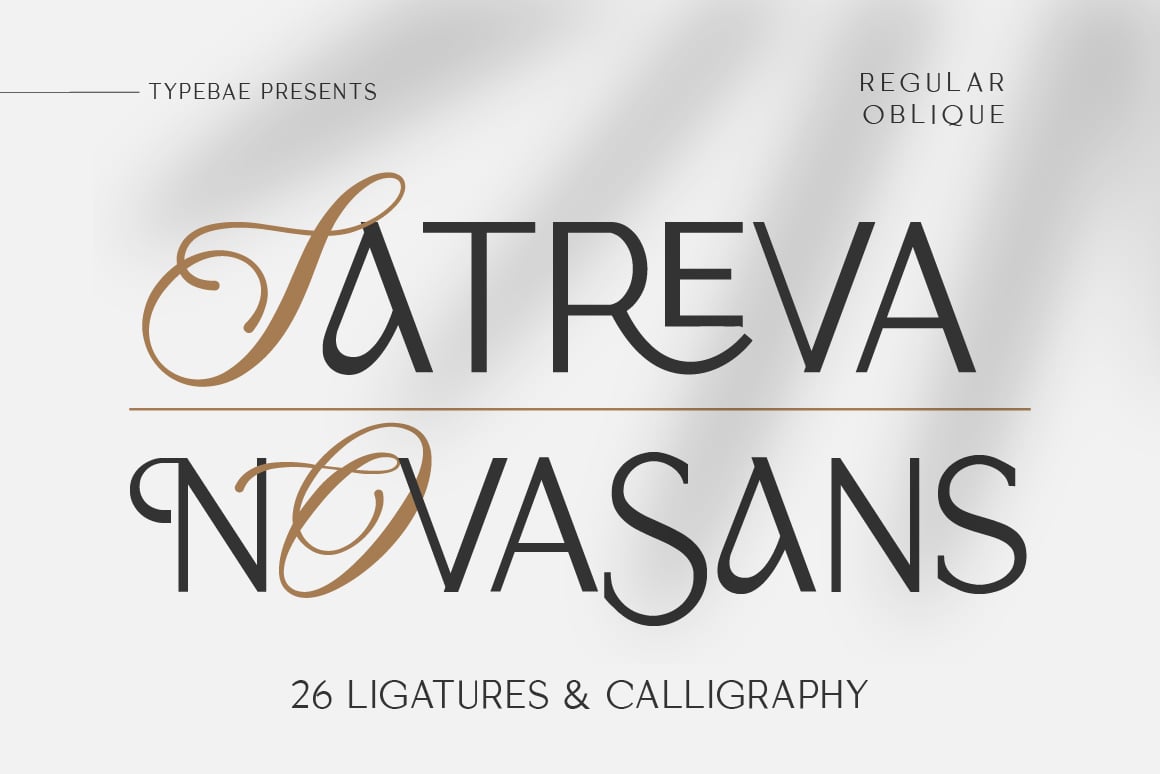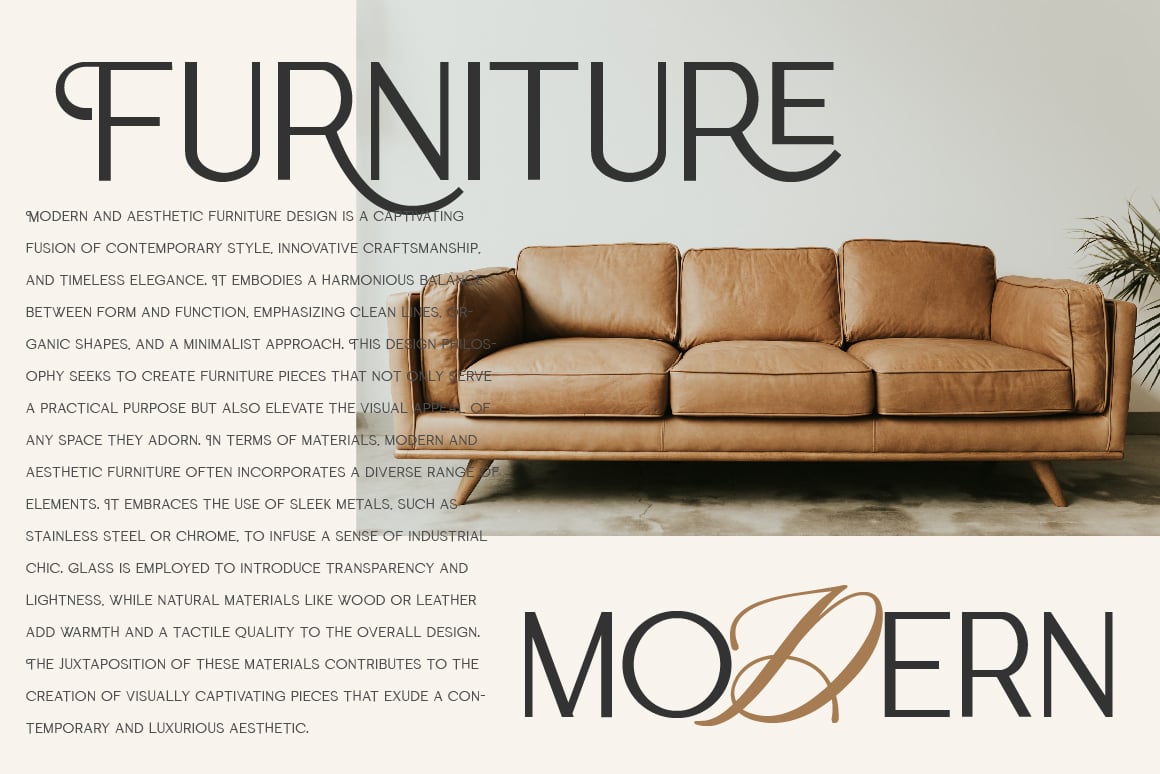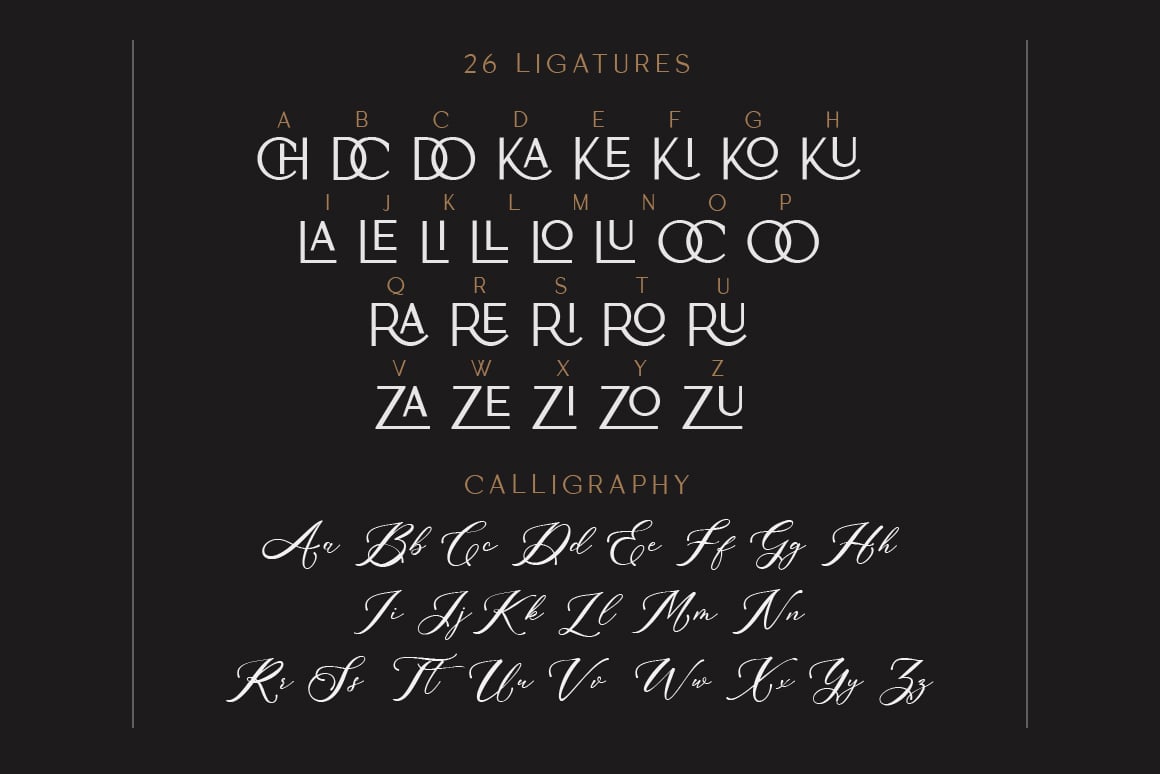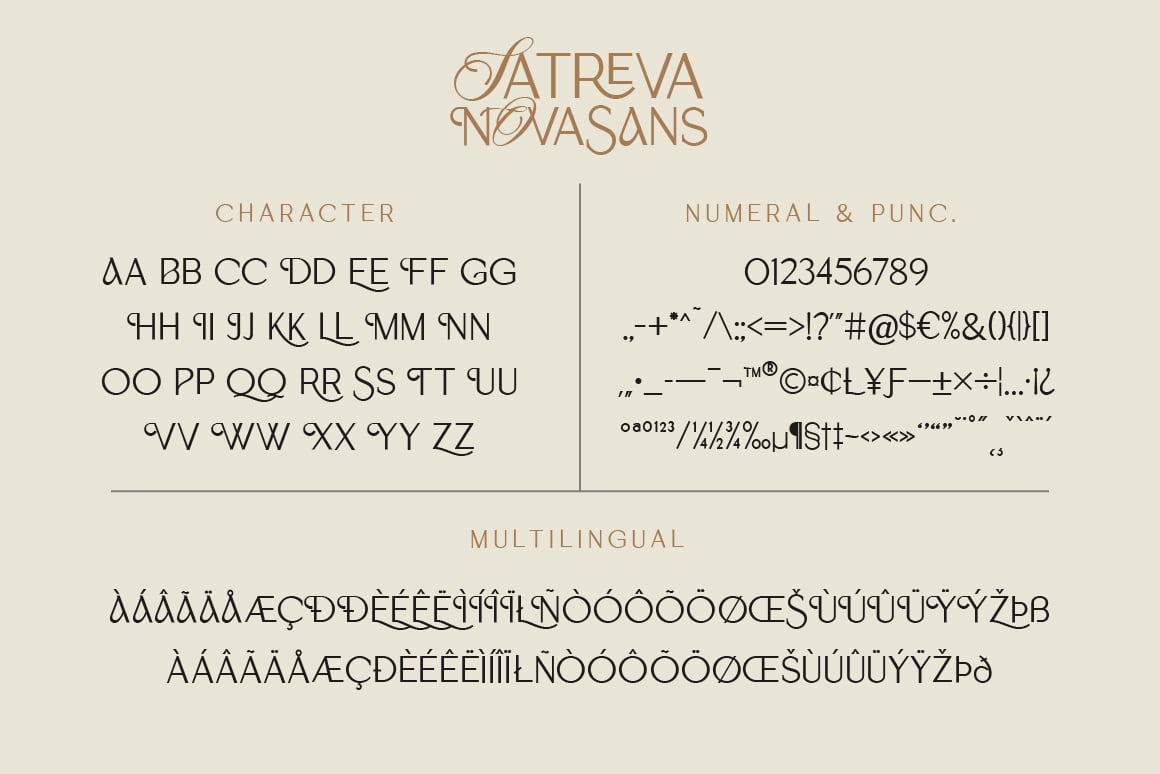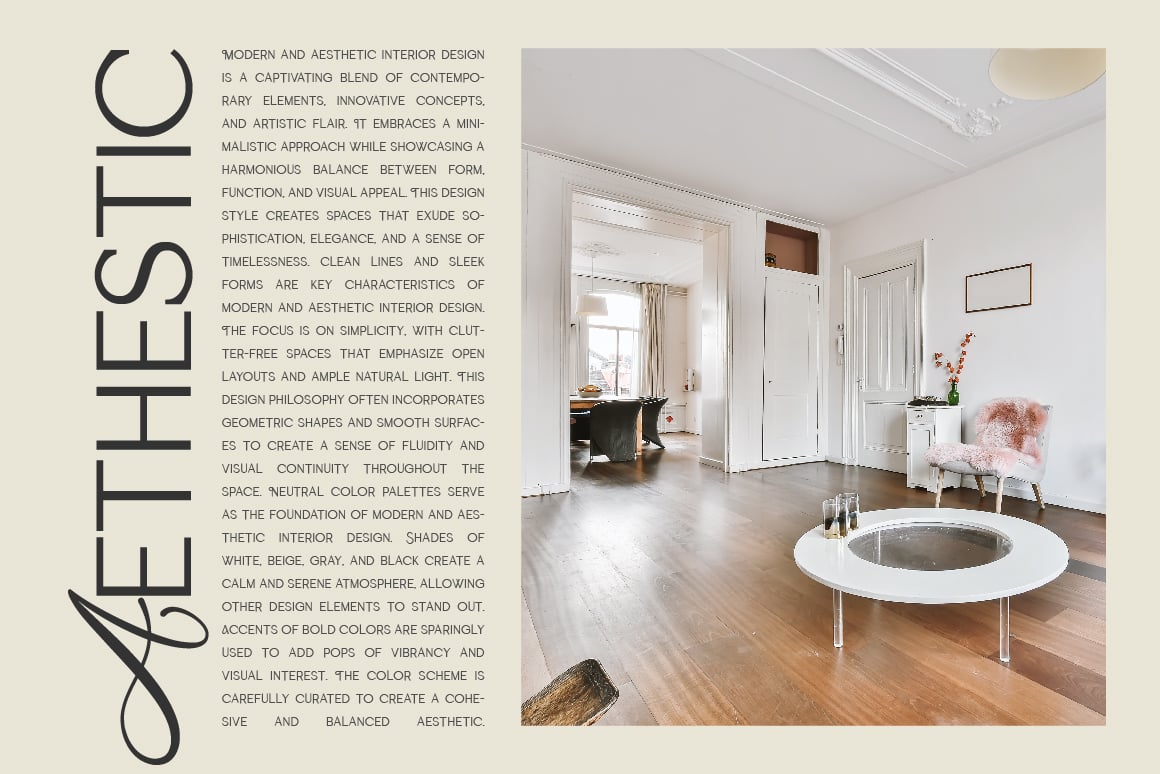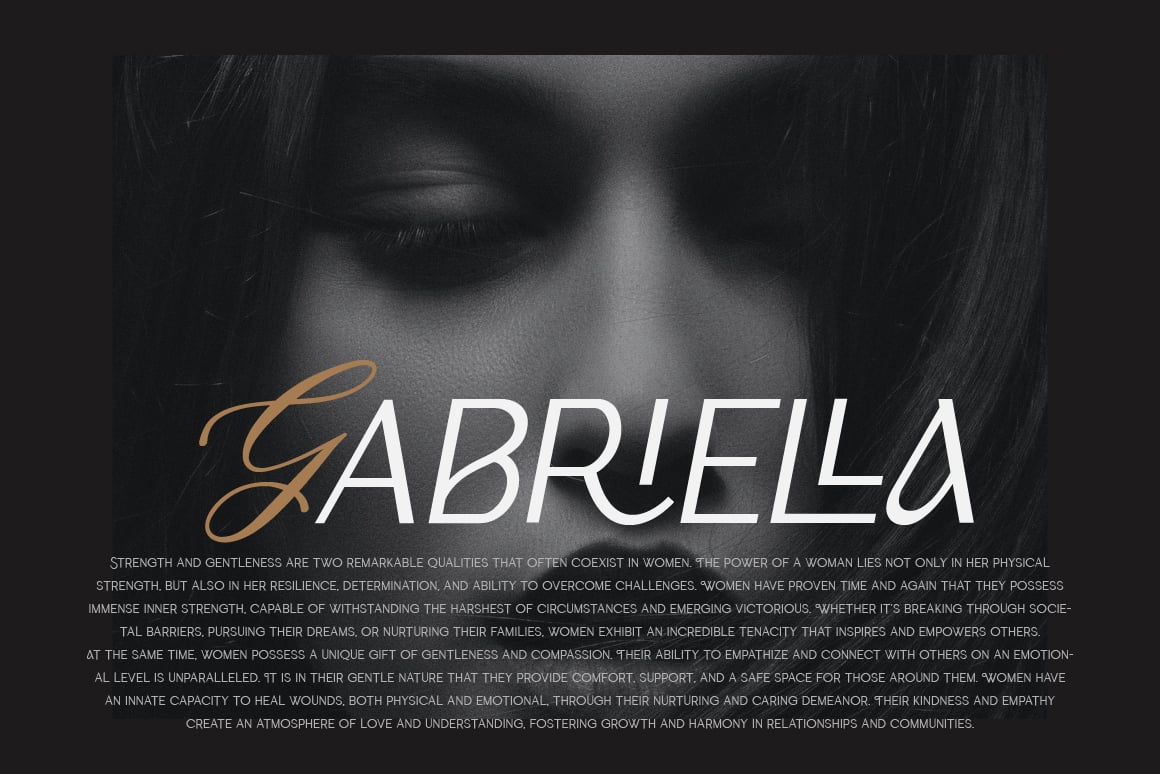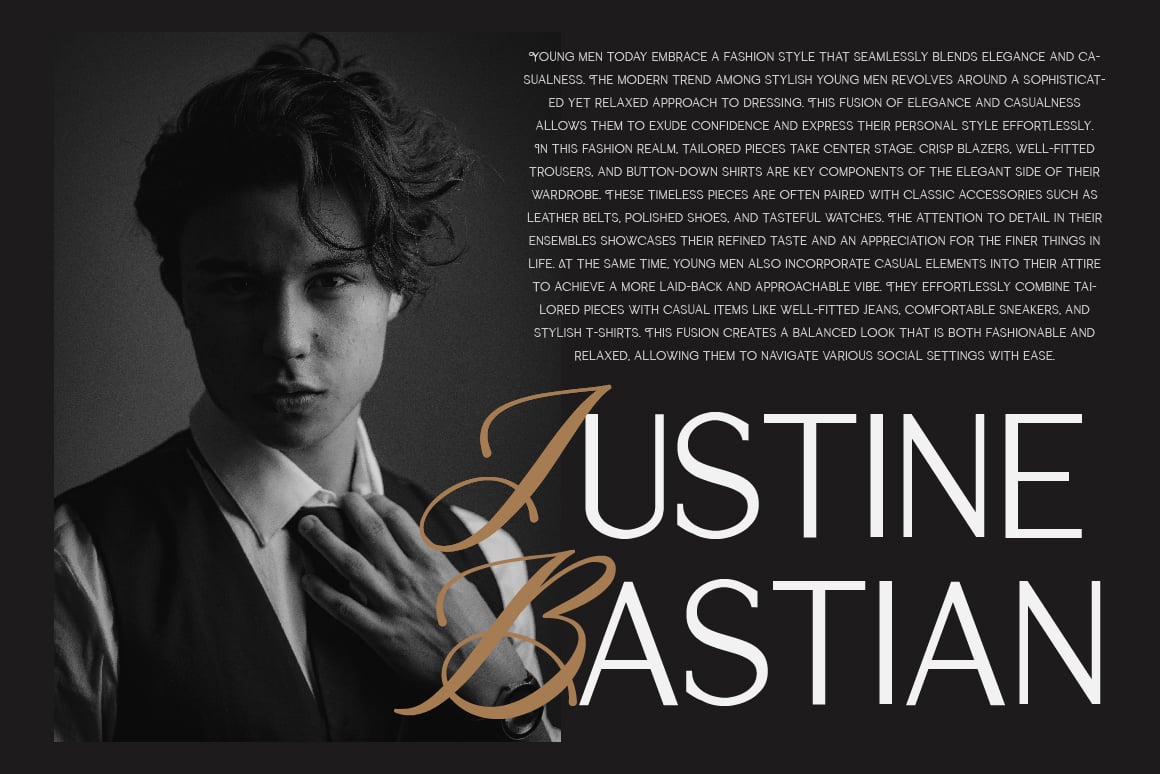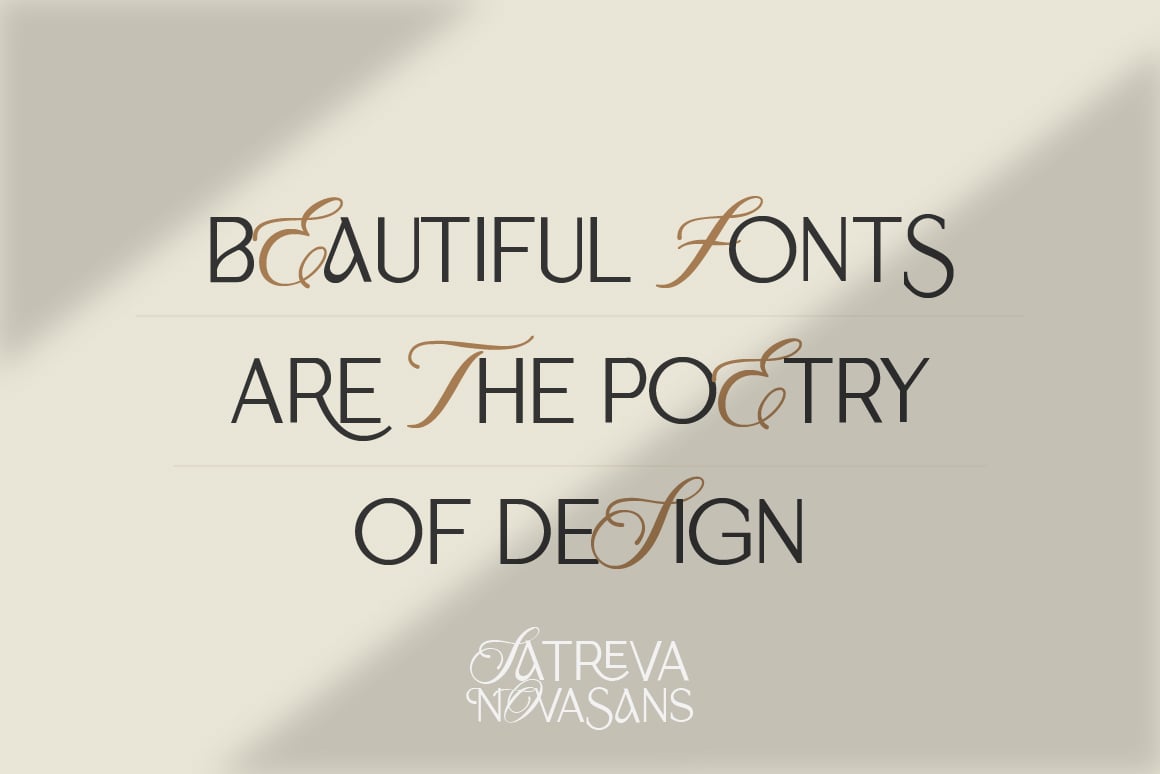
Satreva Nova Sans Font
Satreva Nova Sans is an elegant and stylish sans serif font that boasts 26 unique ligatures. It exudes a timeless sophistication and is accompanied by beautifully crafted calligraphy. Whether used for branding, editorial design, or any creative project, Satreva Nova Sans adds a touch of class and allure.
- 26 ligature feature and challigraphy